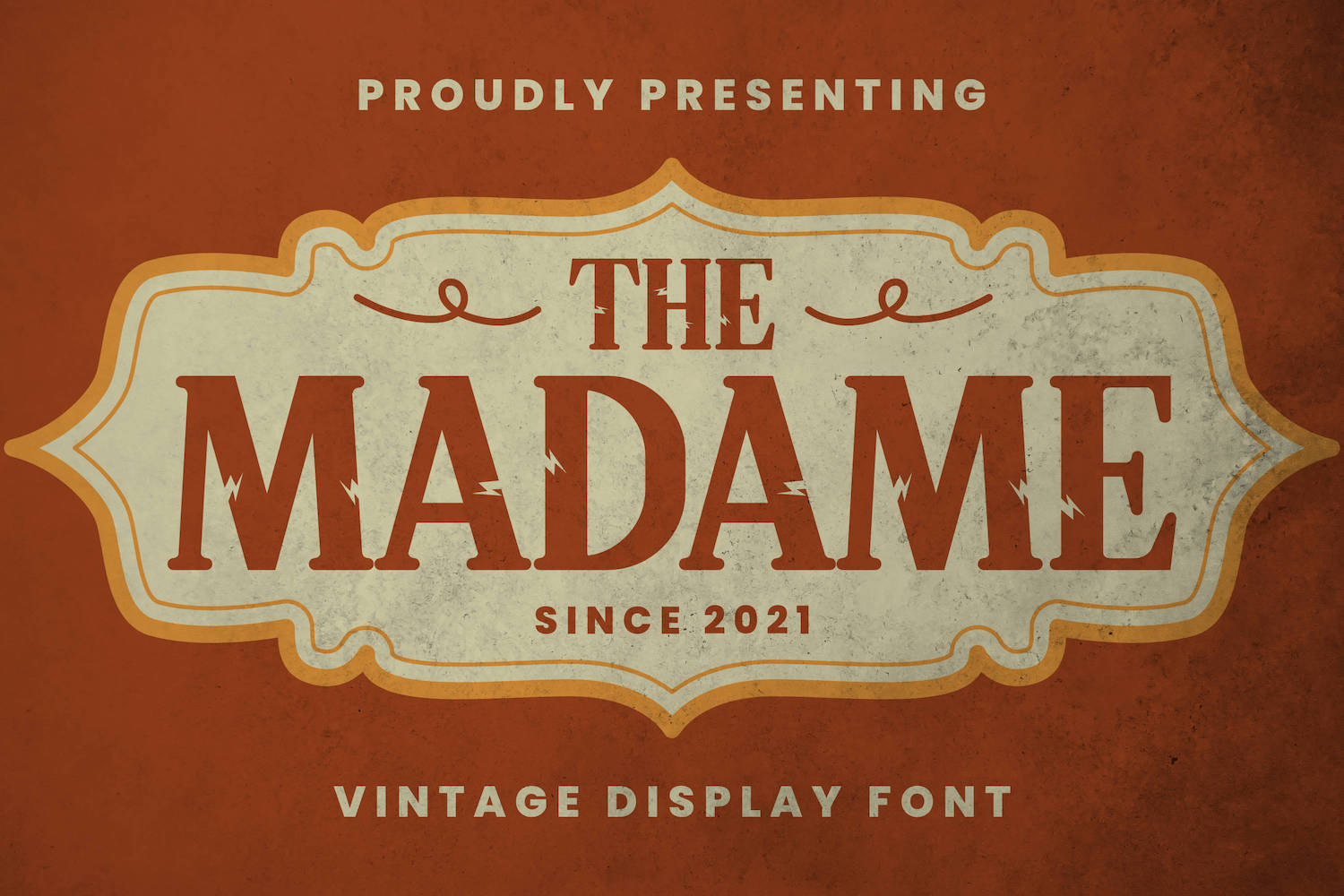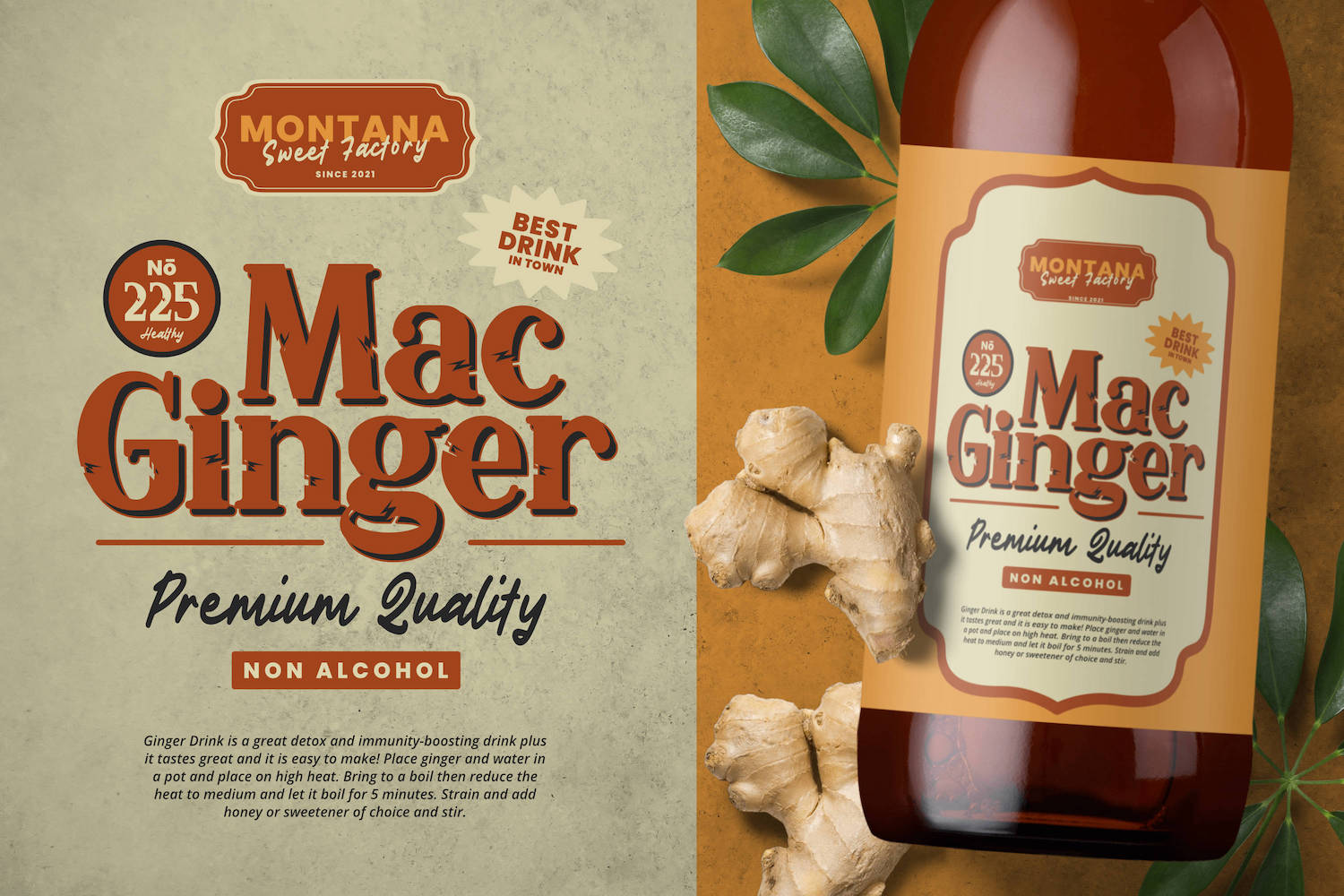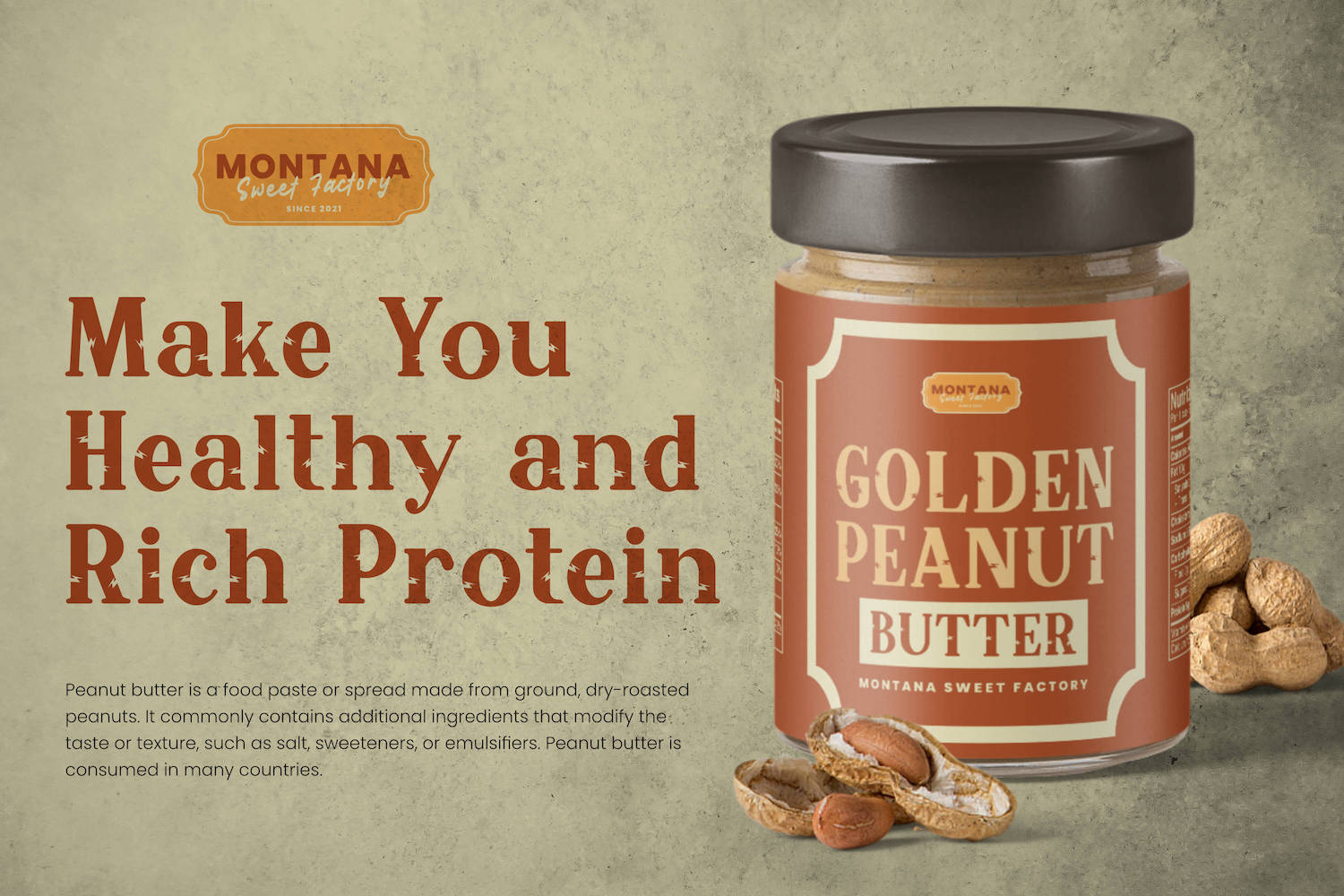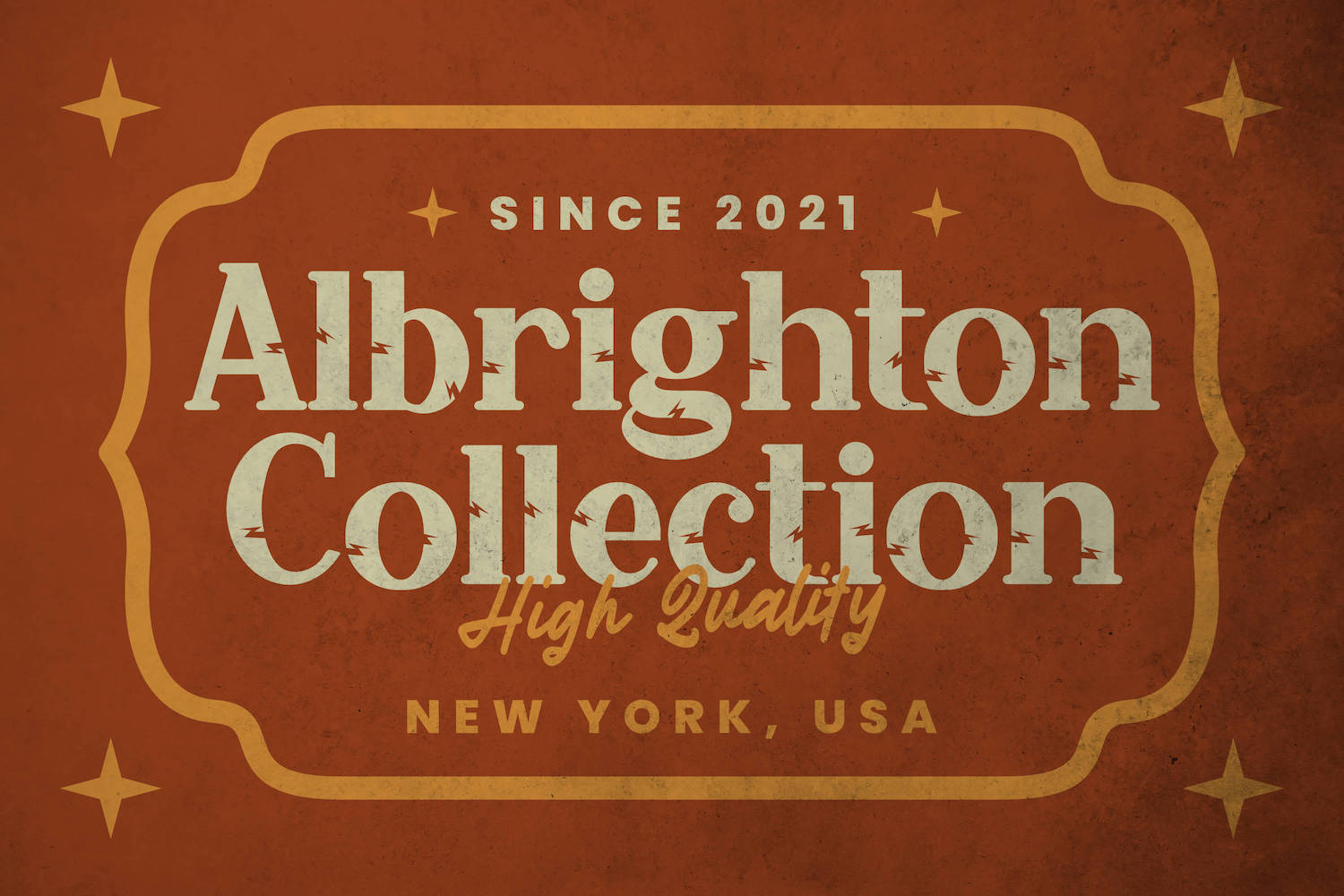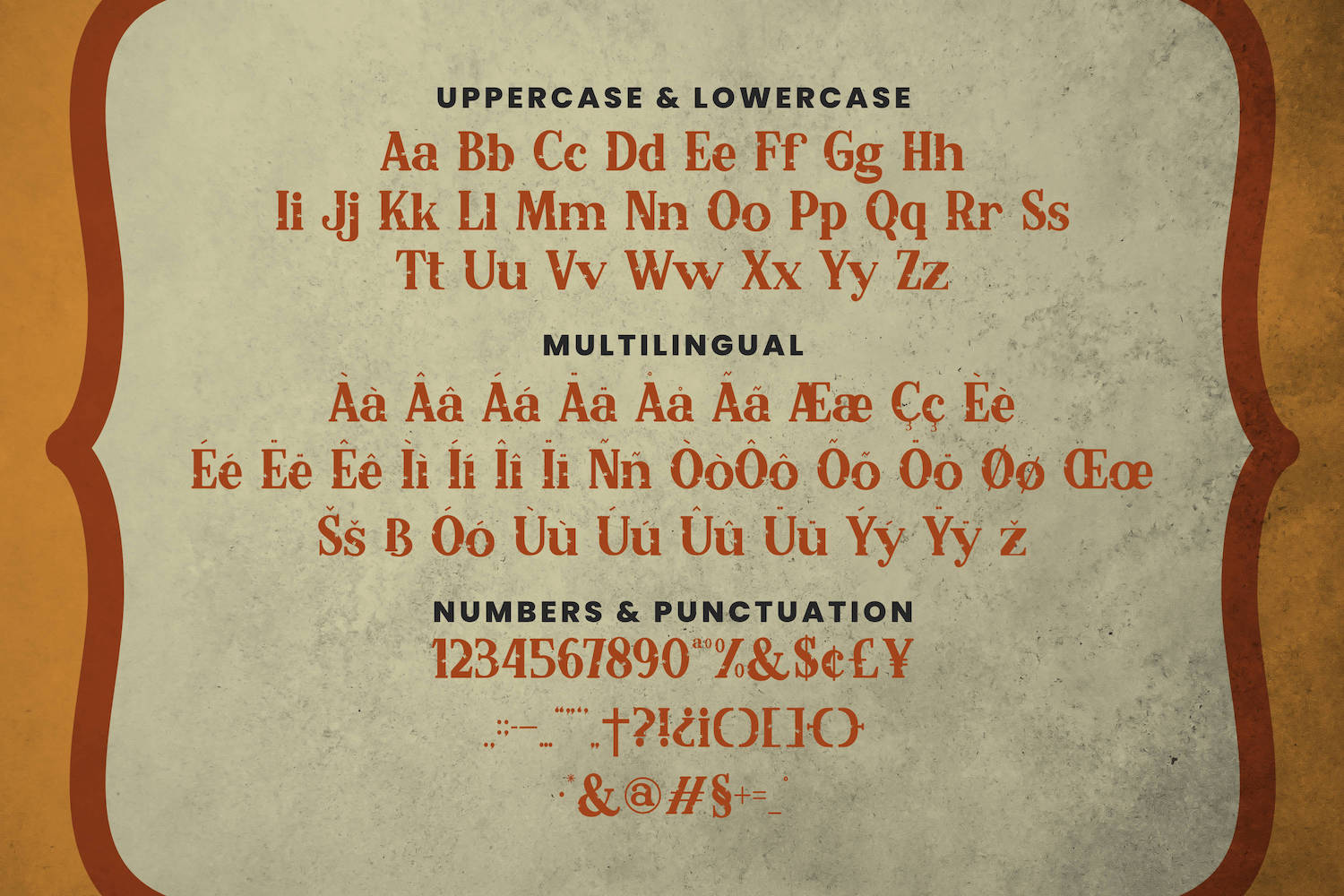
Madame is a bold and expressive vintage display font inspired by traditional American signage and retro design. With its striking uppercase characters and weathered letterforms featuring sharp lightning bolt cuts, this font brings a rugged yet refined energy to your designs. It’s perfect for branding projects that need a nostalgic yet bold visual identity.
Equipped with multilingual support, full uppercase and lowercase sets, as well as punctuation and numerals, Madame is suitable for logos, product labels, headlines, and poster designs. Its handcrafted charm makes it ideal for artisan beverages, vintage food packaging, and classic merchandise branding.